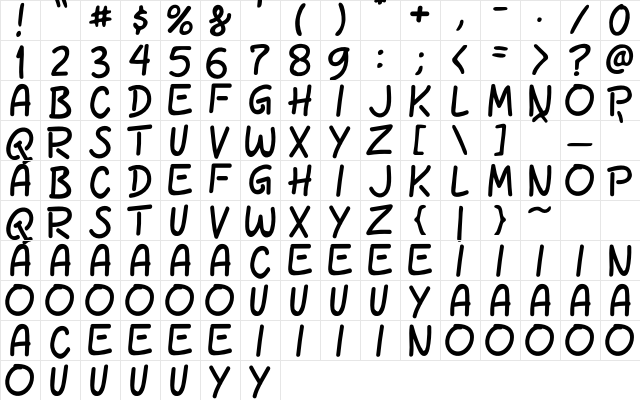
BLACK DRINK Regular
Designer: Doni Dorra
Design Context for BLACK DRINK
BLACK DRINK is a composed and adaptable typeface that performs quietly and consistently across a wide range of design contexts.